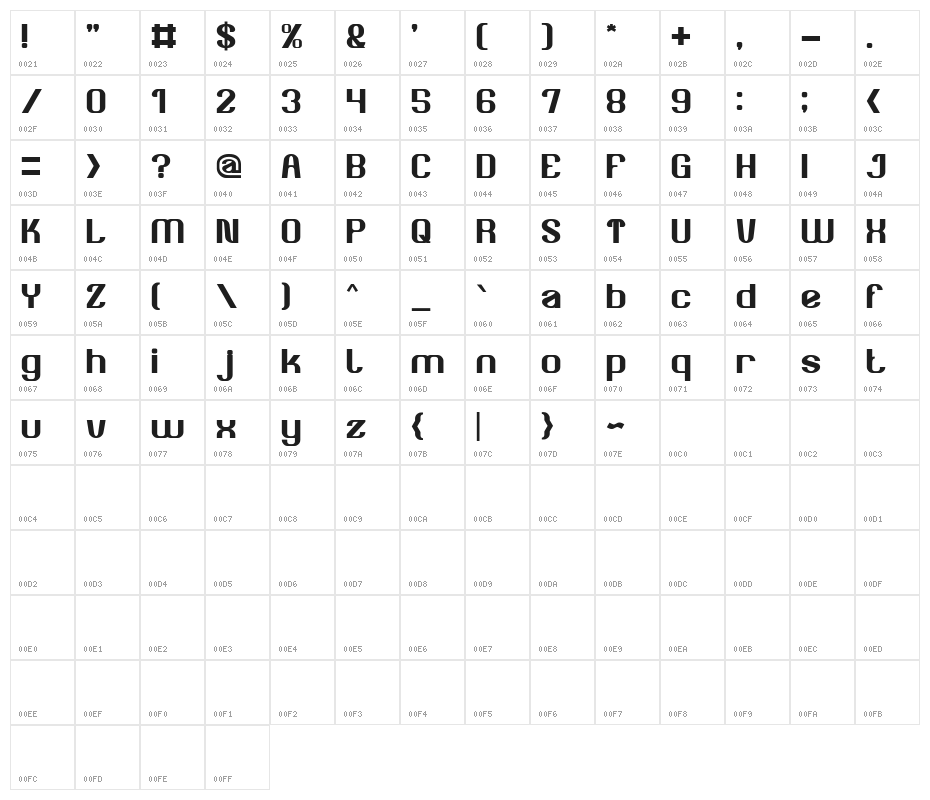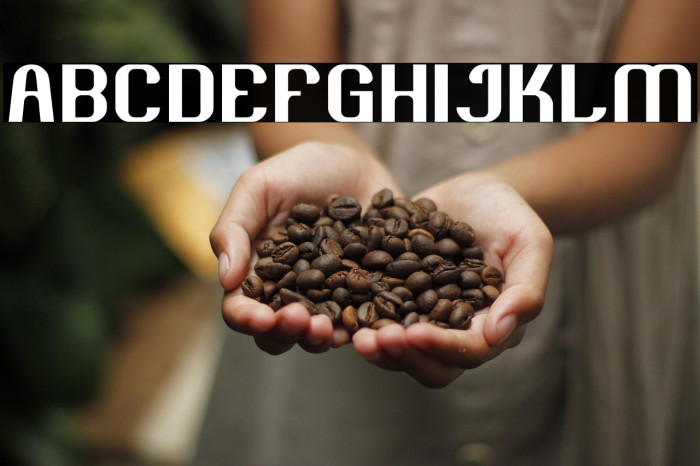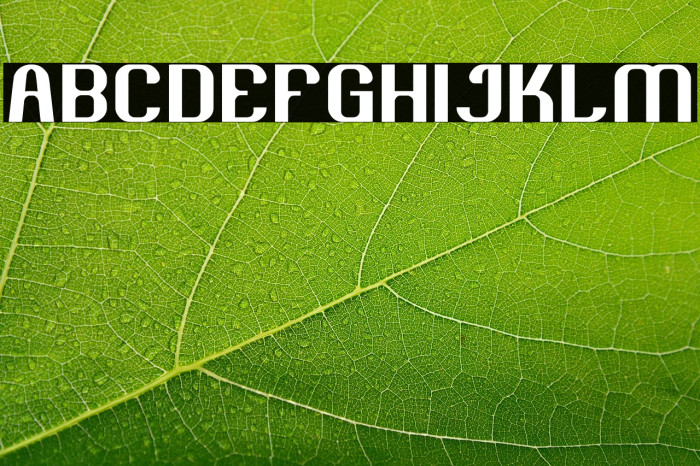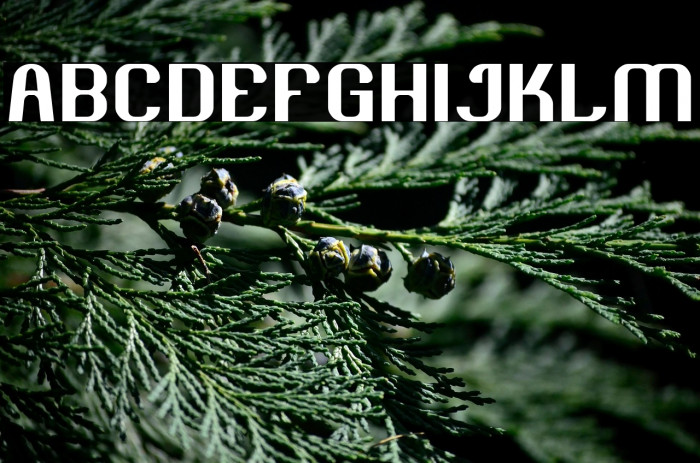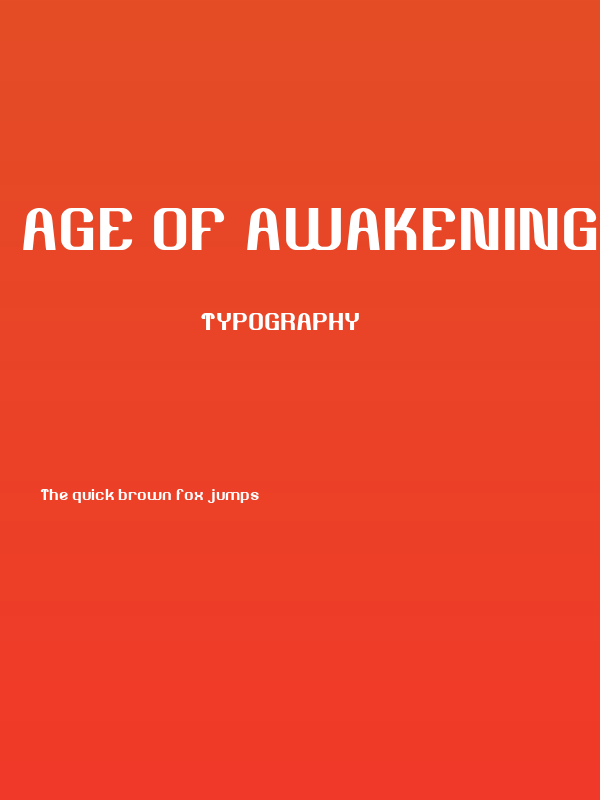
Age of Awakening Font
Age of Awakening Description
This font features a bold and modern design with a unique blend of geometric and rounded elements. The uppercase letters are characterized by their uniform height and consistent stroke width, giving a strong and structured appearance. The lowercase letters maintain a similar style, with some characters exhibiting distinctive curves and angles that add a touch of individuality. The numerals are clear and legible, matching the overall boldness of the typeface. Special characters are well-integrated, maintaining the font's cohesive look. This font is versatile, suitable for a variety of design projects where a contemporary and impactful style is desired.
| Proposed Projects | Ideal for branding, advertising, headlines, and digital media projects that require a modern and impactful typeface. |